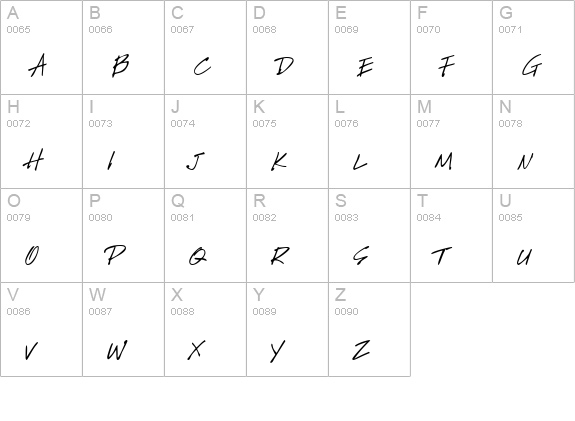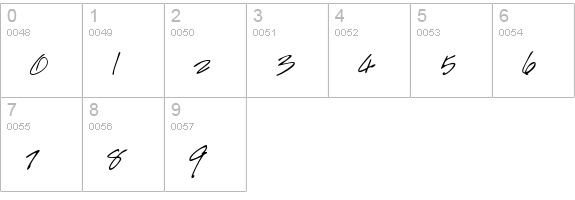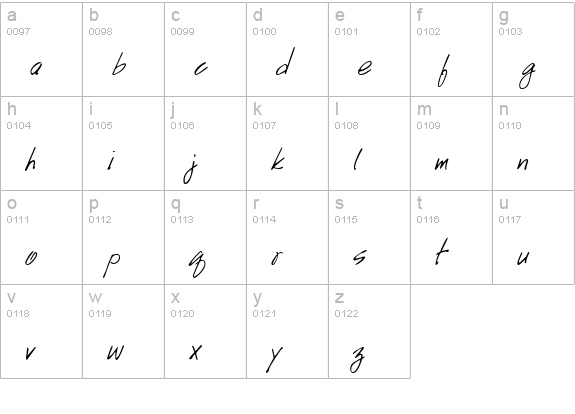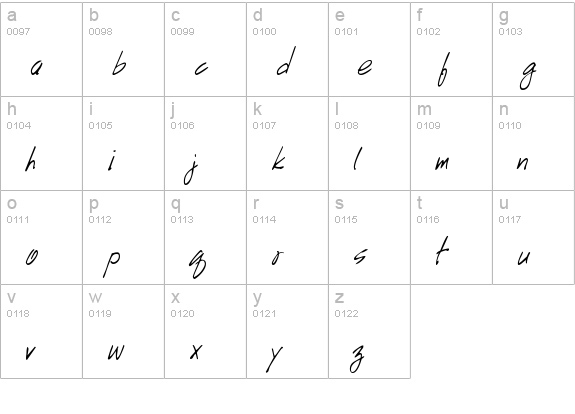
GE HandyScript Font Details
GE HandyScript is a charming and versatile handwritten font that adds a touch of personality to any design project. With its flowing lines and casual style, this font is perfect for creating a friendly and approachable feel in your designs. Whether you're working on invitations, greeting cards, or social media graphics, GE HandyScript will bring a warm and inviting vibe to your work. But the best part? GE HandyScript is completely free to download! You can easily access this delightful font at FontsMarket.com and start using it in your projects right away. Don't miss out on this fantastic opportunity to enhance your designs with the unique flair of GE HandyScript.